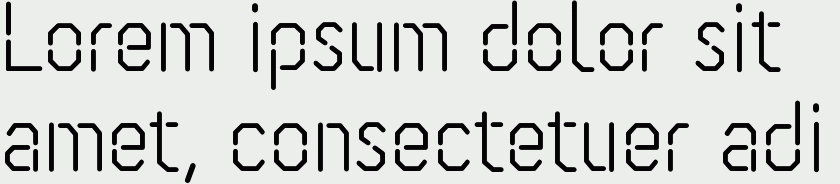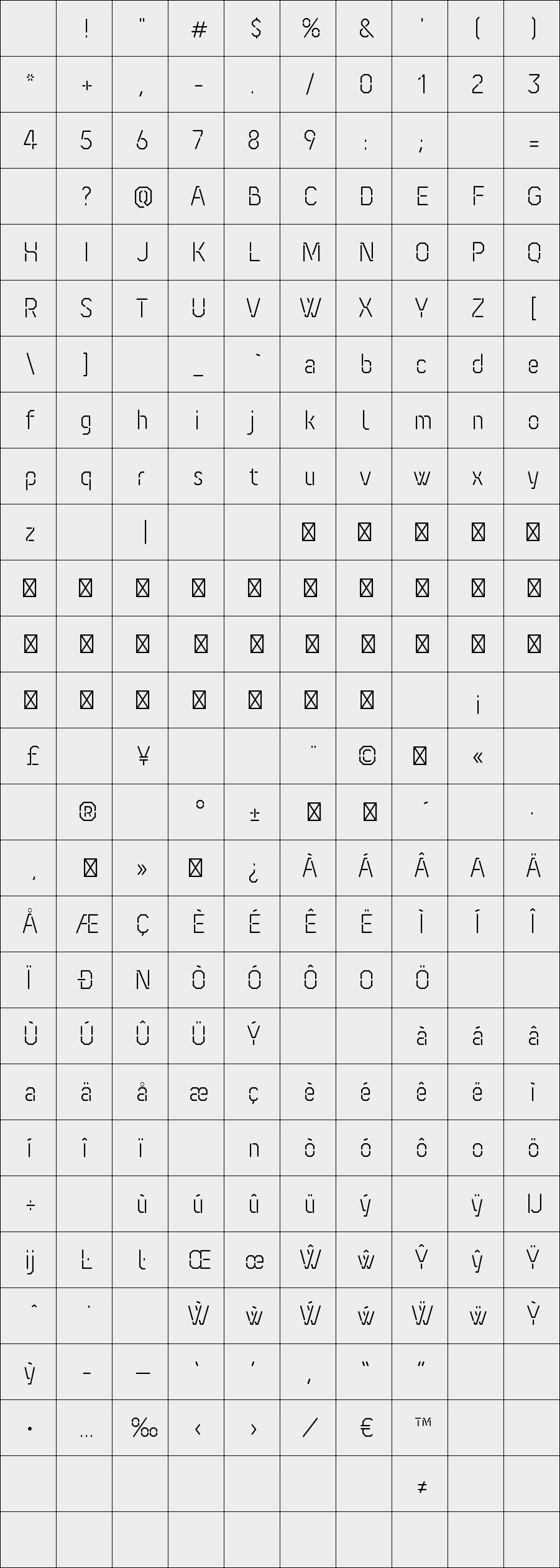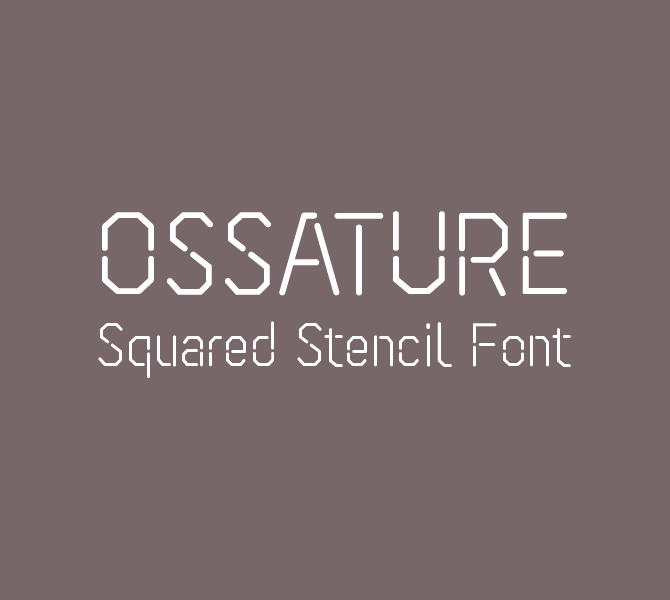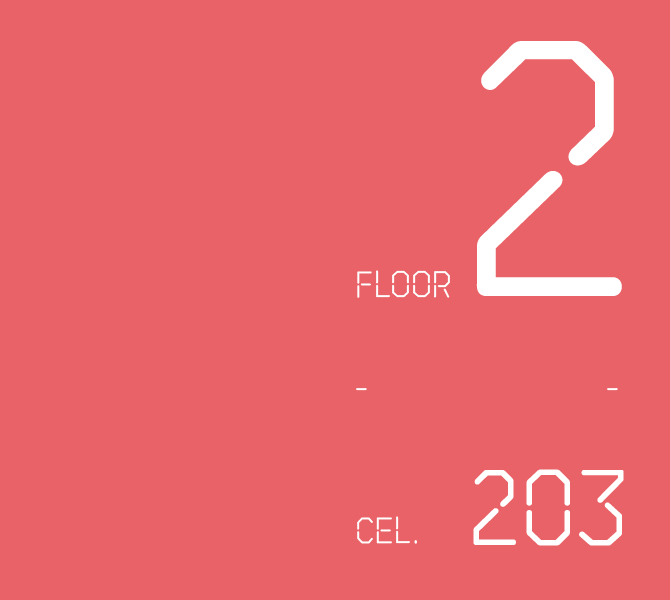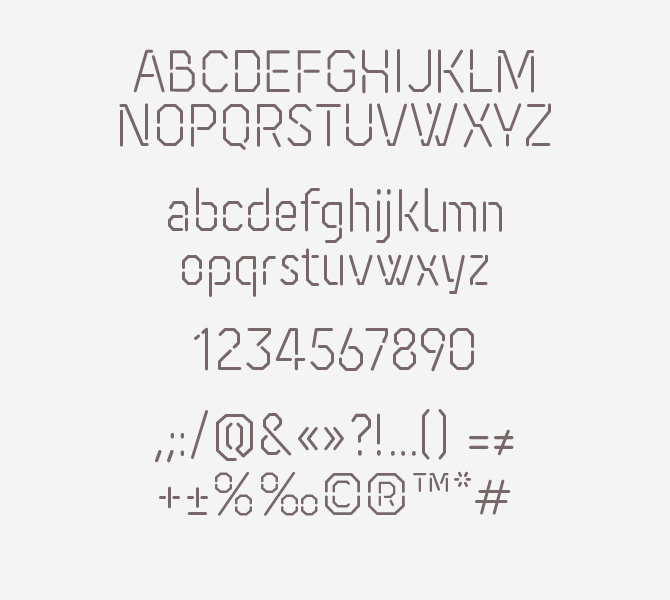
Ossature
Ossature is an elegant Stencil font that combines squared shapes and rounded corners. It was designed for discreet signage systems, inspired by renovation projects of industrial buildings.